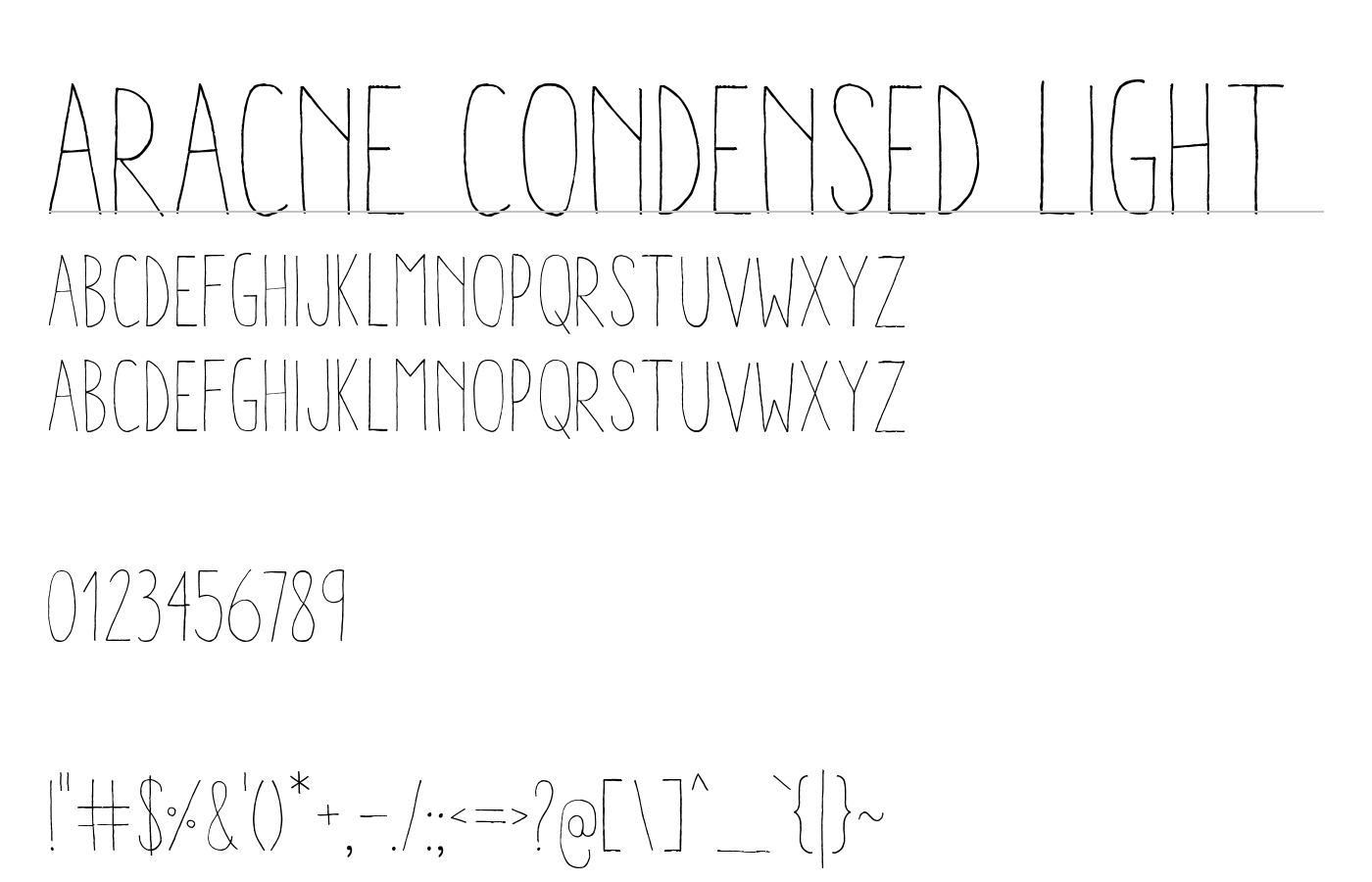
Aracne Condensed Regular is a delicate, narrow sans serif font with a hand-drawn, whimsical feel. Its tall, thin letterforms with subtle uneven strokes create an airy, approachable style perfect for creative projects, informal branding, and playful headlines. This font works best where a light, distinctive touch is needed to add personality without overwhelming the design.
Aracne Condensed Regular Font
About Aracne Condensed Regular Font
| Font family | Aracne Condensed Regular Font |
| Designer | Julia Martinez Diana, Antipixel |
| Font subfamily | Condensed |